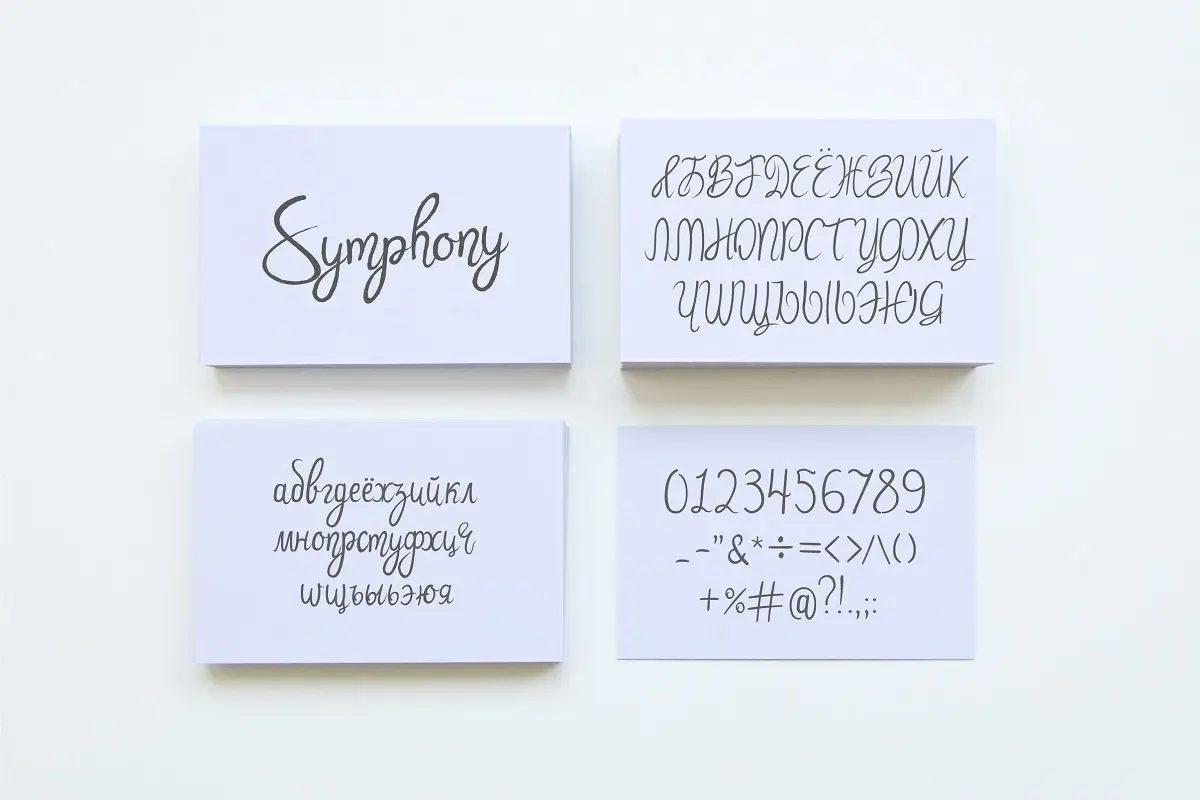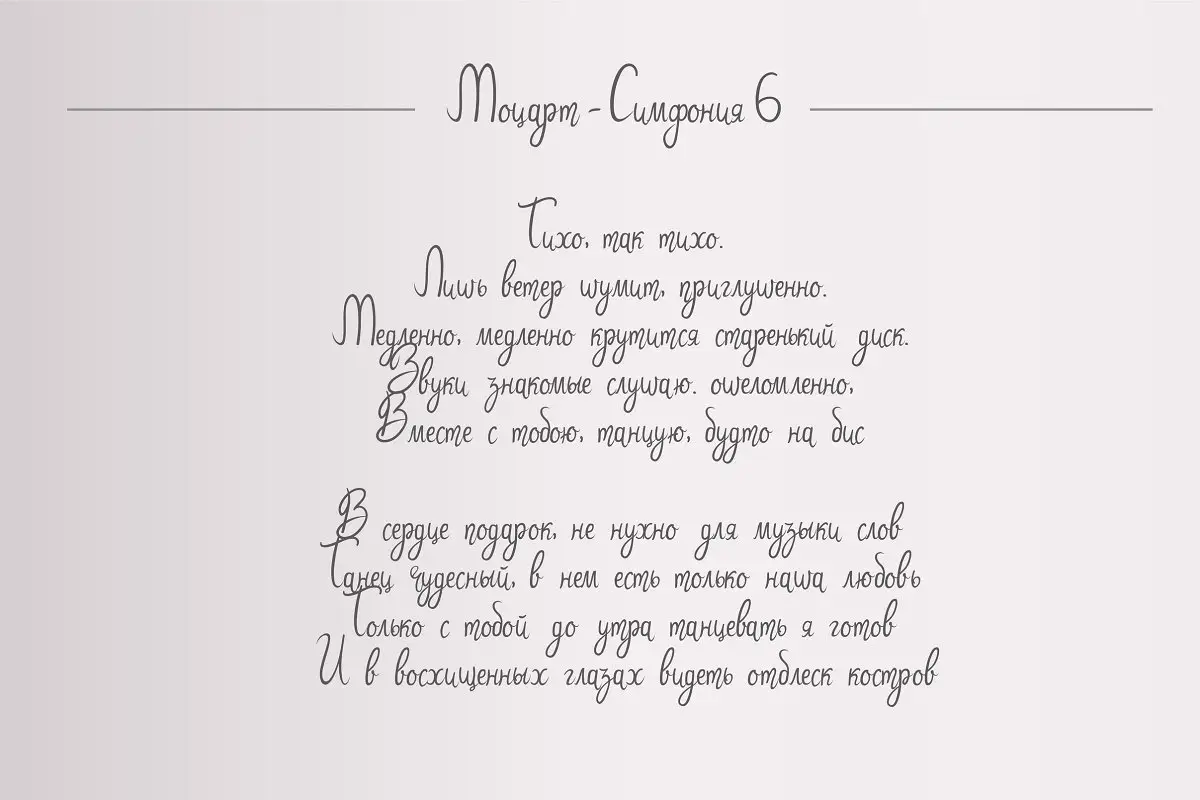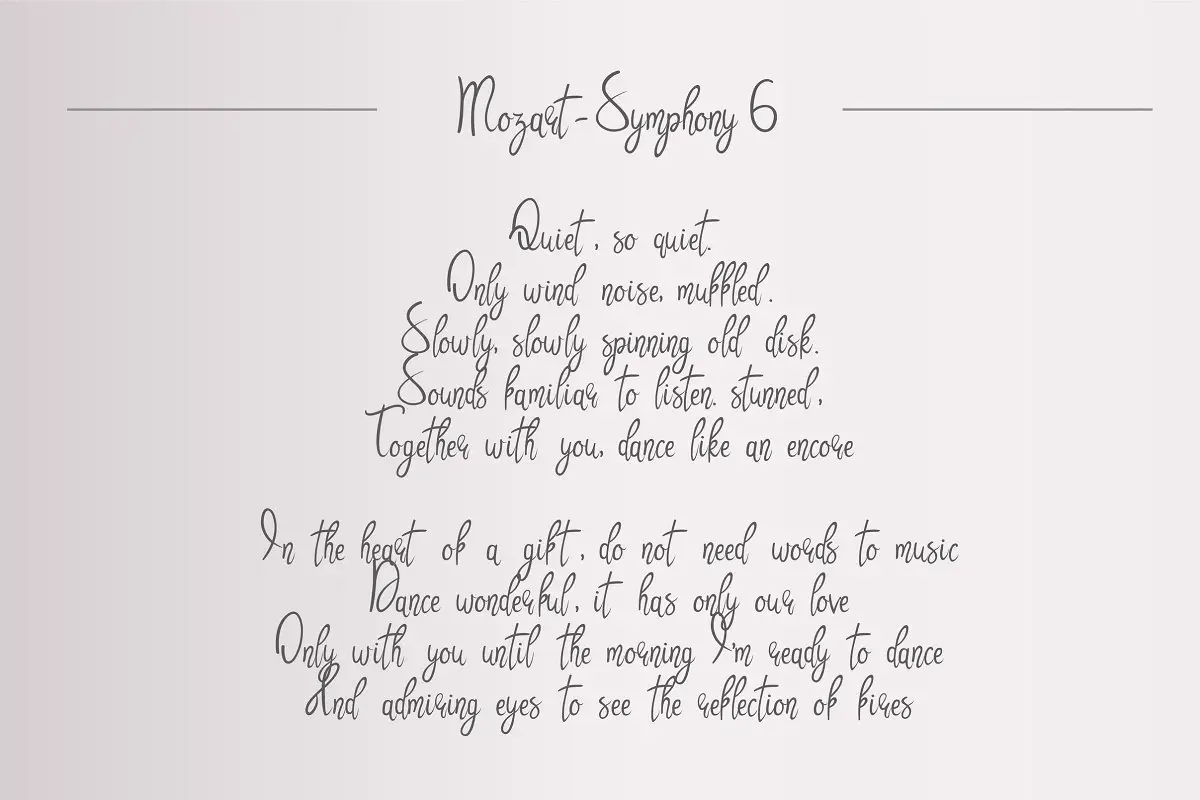
Symphony Handycrafted Font
The Symphony Handycrafted Font is a beautifully designed typeface that captures the essence of artisanal craftsmanship. With its unique character and elegant curves, this font is perfect for a variety of creative projects.
• Handcrafted design for a personal touch
• Ideal for web and print applications
• Great for branding, logos, and packaging
• Perfect for invitations, posters, and social media graphics
• Use in UI design for a unique aesthetic